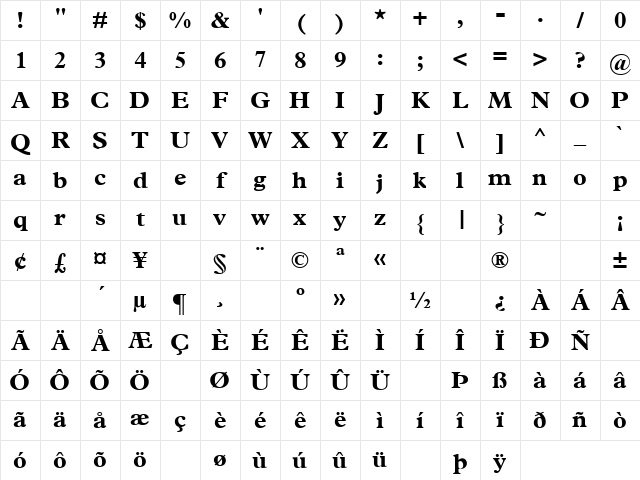
Complete Lick And A Promise 2 Regular glyph index. Displaying only characters natively supported by Lick And A Promise 2 Regular font.
Lick And A Promise 2 is a composed and adaptable typeface that performs quietly and consistently across a wide range of design contexts.
Pro Tip: Use Lick And A Promise 2 in both headline and body roles to test its range before committing to a single application.